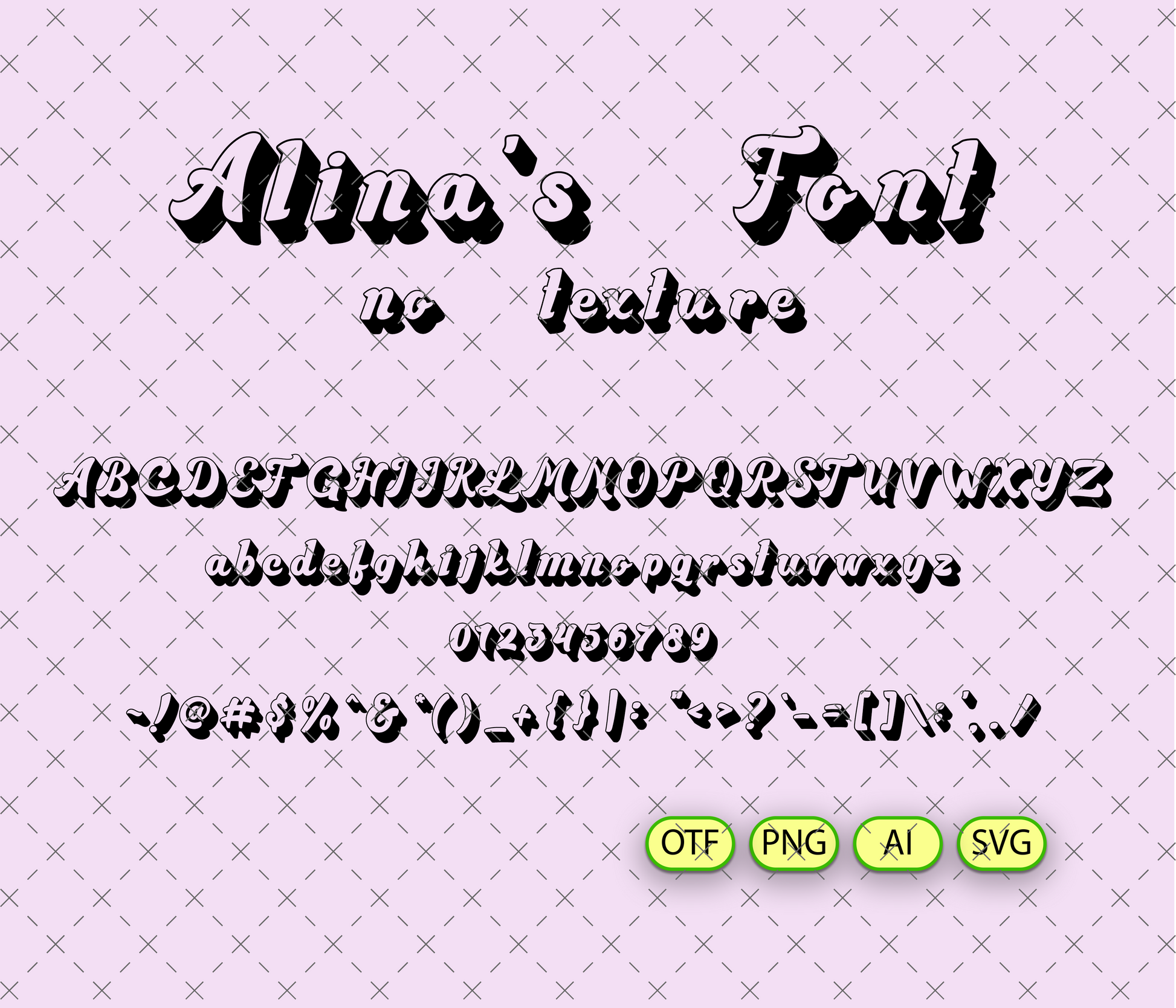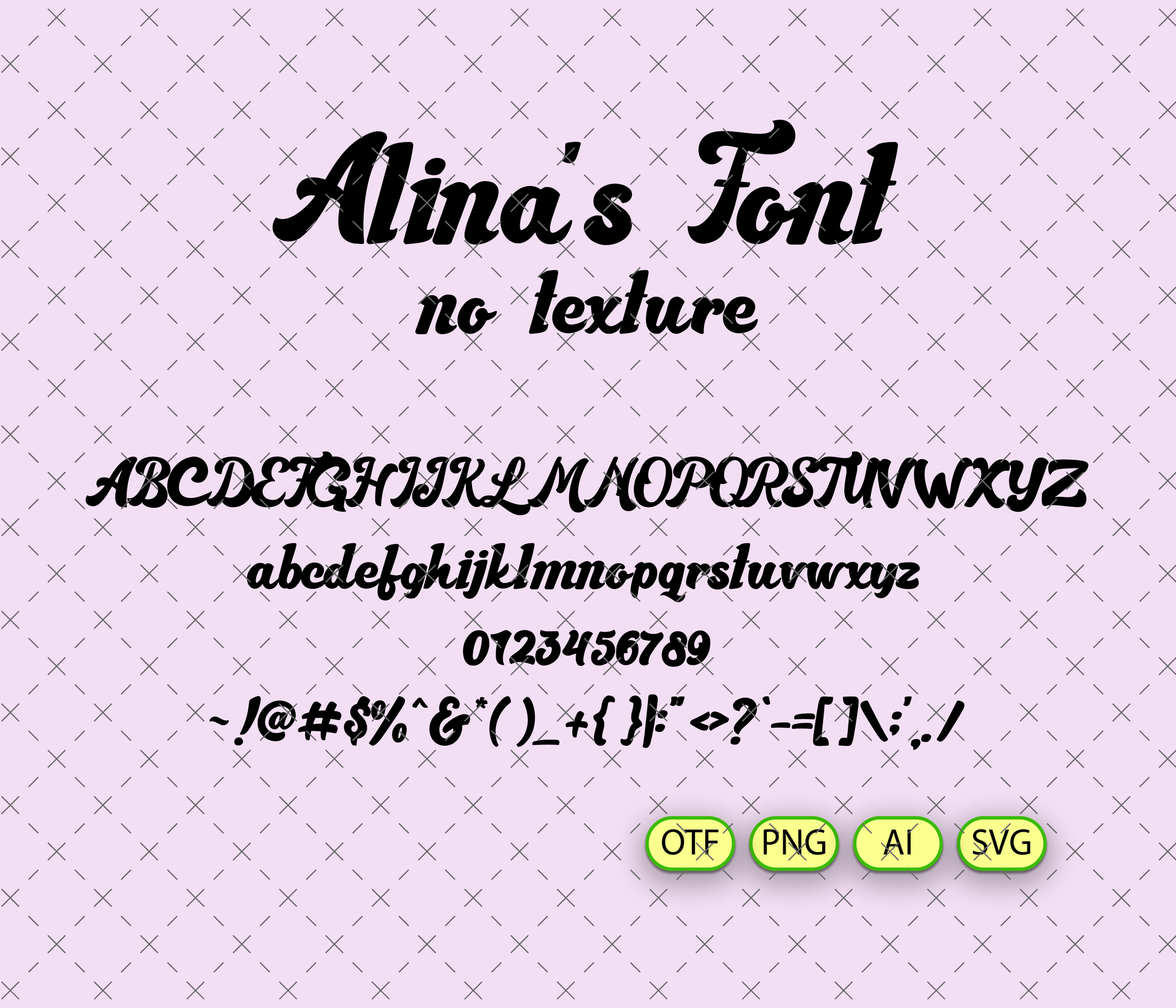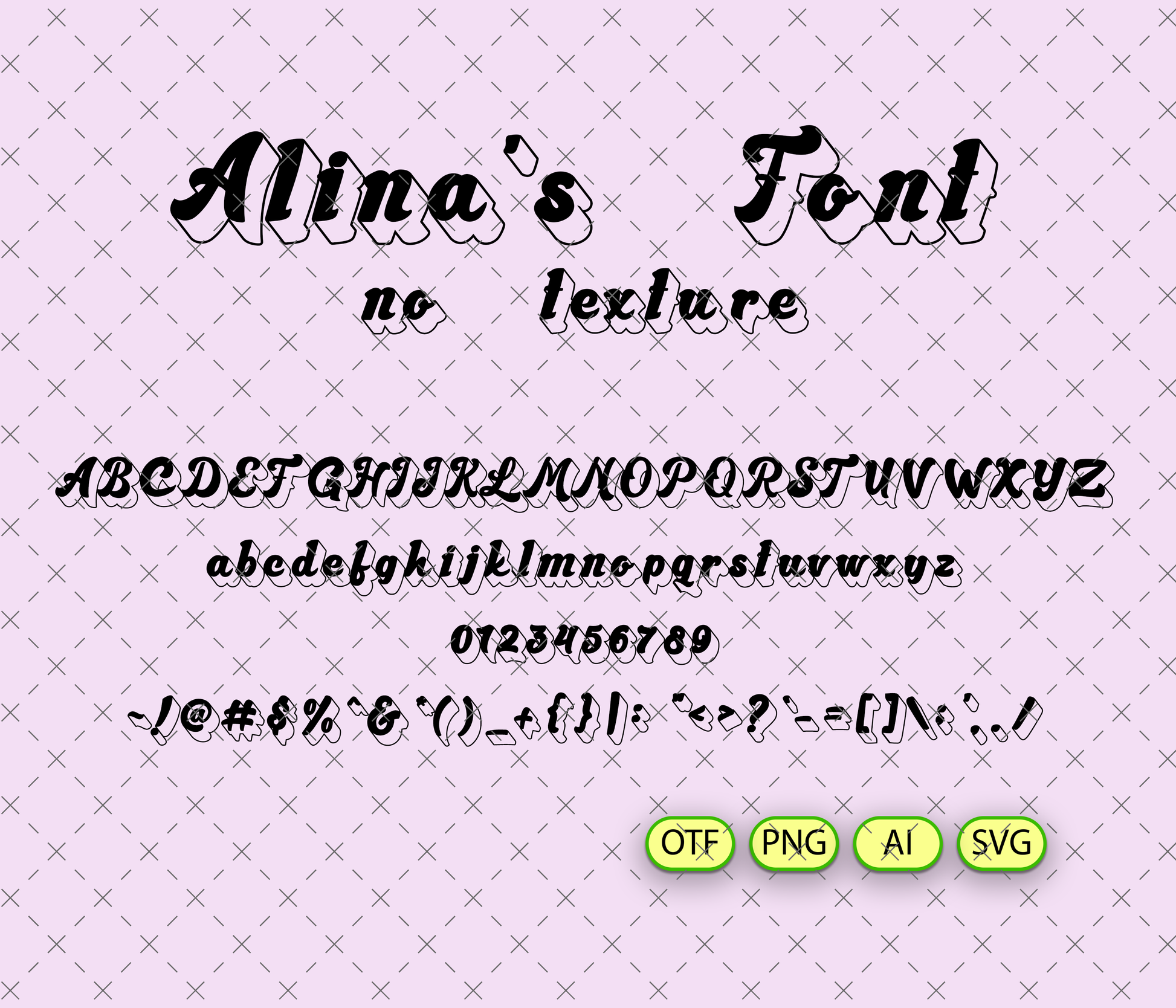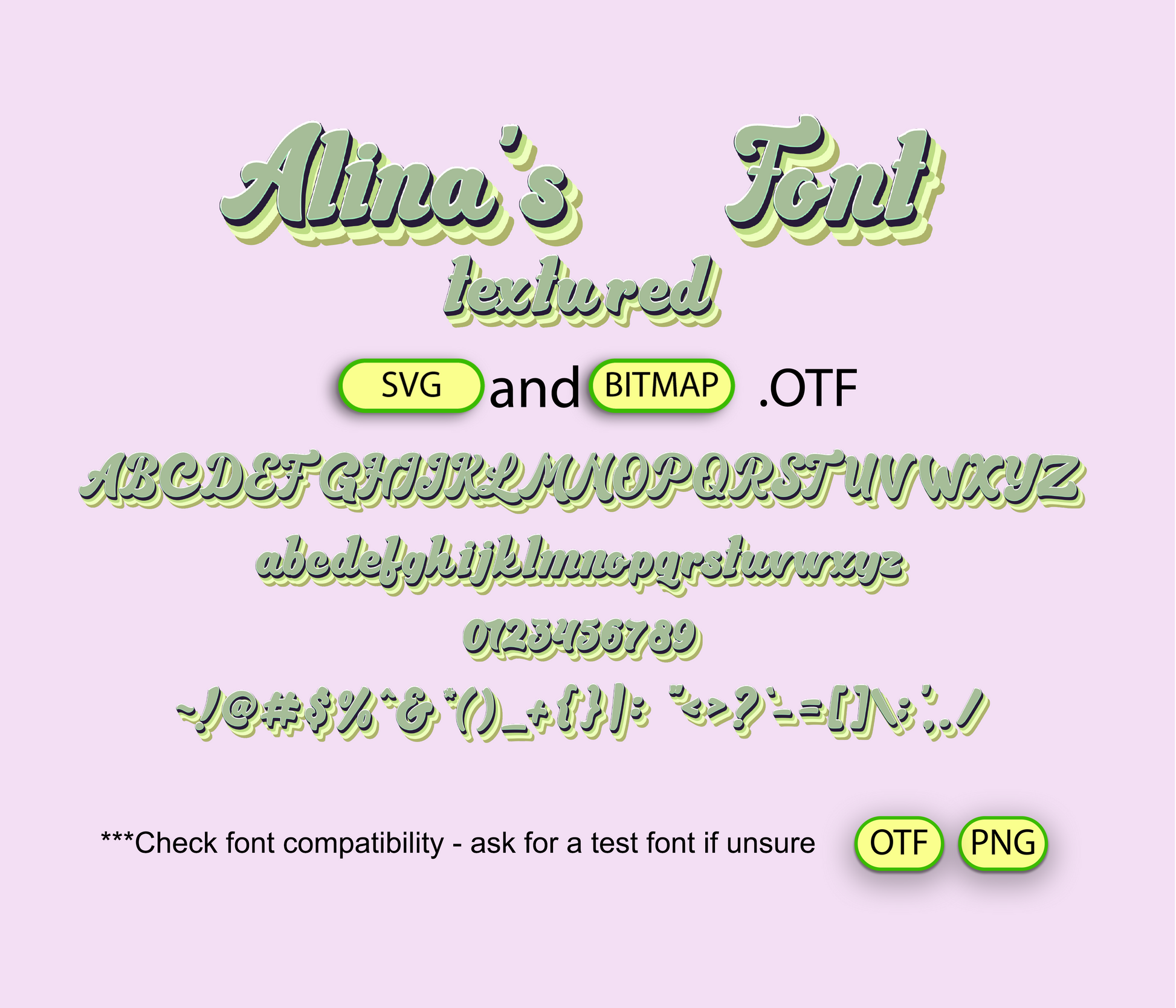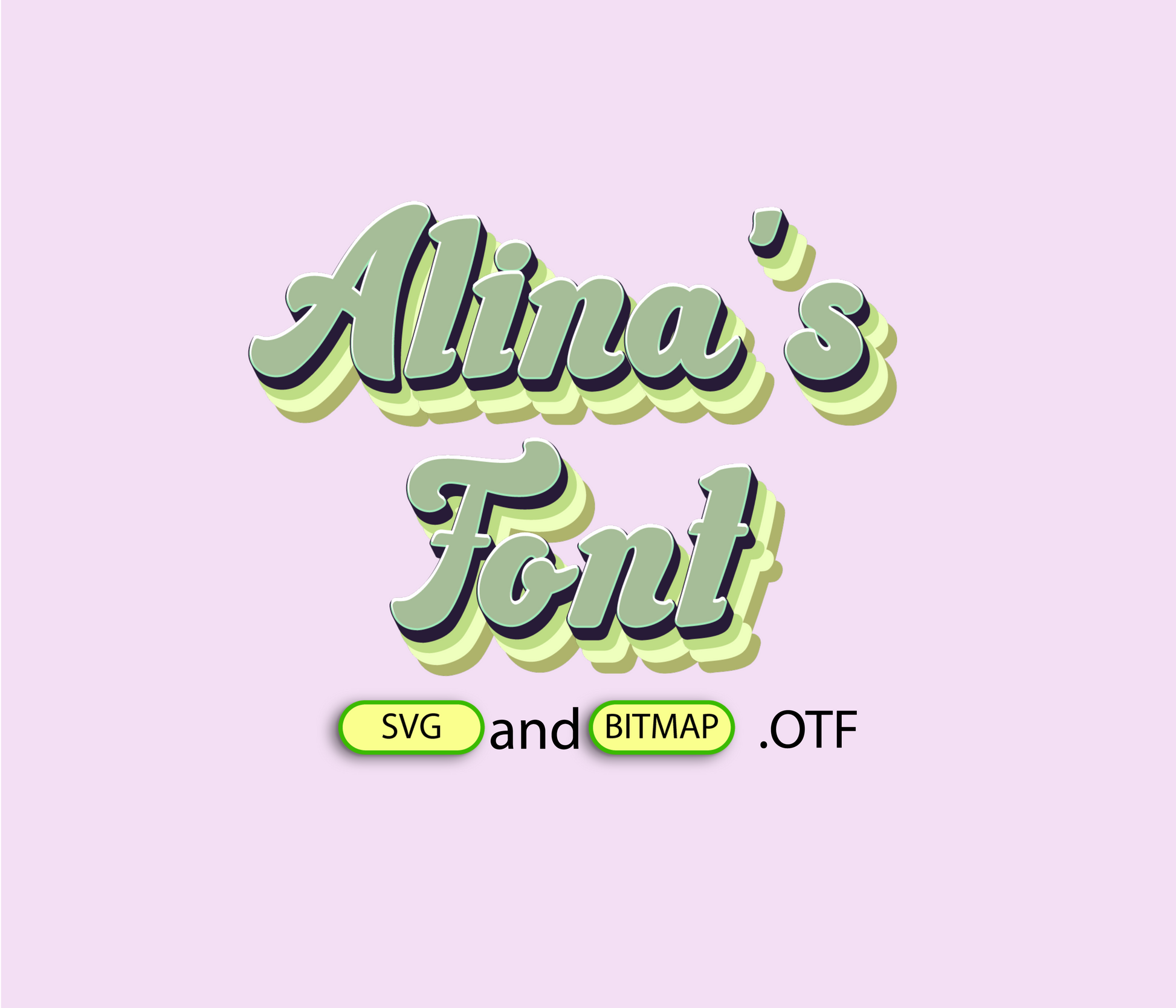
Bell Bottom Font Textured
Step into the wide-legged swagger of platform shoe struts and flared denim seventies fashion culture with our Bell Bottom Font Textured, capturing the essence of catwalk confidence and legendary wide-leg silhouette era narratives. Perfect for vintage fashion enthusiasts, retro style event planners, seventies culture media producers, and groovy wardrobe design specialists, this font brings the bold, strutting character of iconic flared denim storytelling to your projects. Create style-forward invitations, commercial goods, or web content with the swaggering presence of platform shoe culture narratives.
Strutting Typography for Fashion Design & Seventies Flared Culture Projects
Our Bell Bottom Font Textured features bold, wide-legged letterforms with flared denim catwalk textures reflecting the world of legendary platform shoe struts and iconic seventies fashion culture wonder.
- Event Promotions: Craft style-forward invitations, posters, and banners for vintage fashion celebrations, retro catwalk gatherings, and flared denim events that radiate the swaggering spirit of legendary seventies fashion entertainment
- Merchandise Design: Perfect for apparel, wall prints, adhesive graphics, and collectibles that showcase the wide-legged aesthetic of platform shoe and seventies flared denim culture themes
- Digital Media: Strut websites, content channels, and social platforms with fashion-forward header designs and imagery that express the groovy wonder of legendary seventies bell bottom fashion eras
- Creative Content: Add signature catwalk flair to fashion illustrations, flared denim artwork, and imaginative projects inspired by beloved seventies platform shoe culture chronicles
- Personal Projects: Stir wide-legged swagger into memory albums, handcrafted items, and living space decorations inspired by the world of legendary seventies bell bottom fashion characters
Our font pays tribute to the world of flared denim wonder and generation-spanning seventies fashion groove culture, empowering your projects with its bold and wide-legged swaggering character. Whether crafting fashion-themed materials, designing retro wardrobe products, or adding a seventies platform shoe touch to personal projects, this font communicates the strutting essence of bell bottom magic. Ready to flare seventies fashion wonder into your creations? This font is your key to attention-grabbing, impactful design.